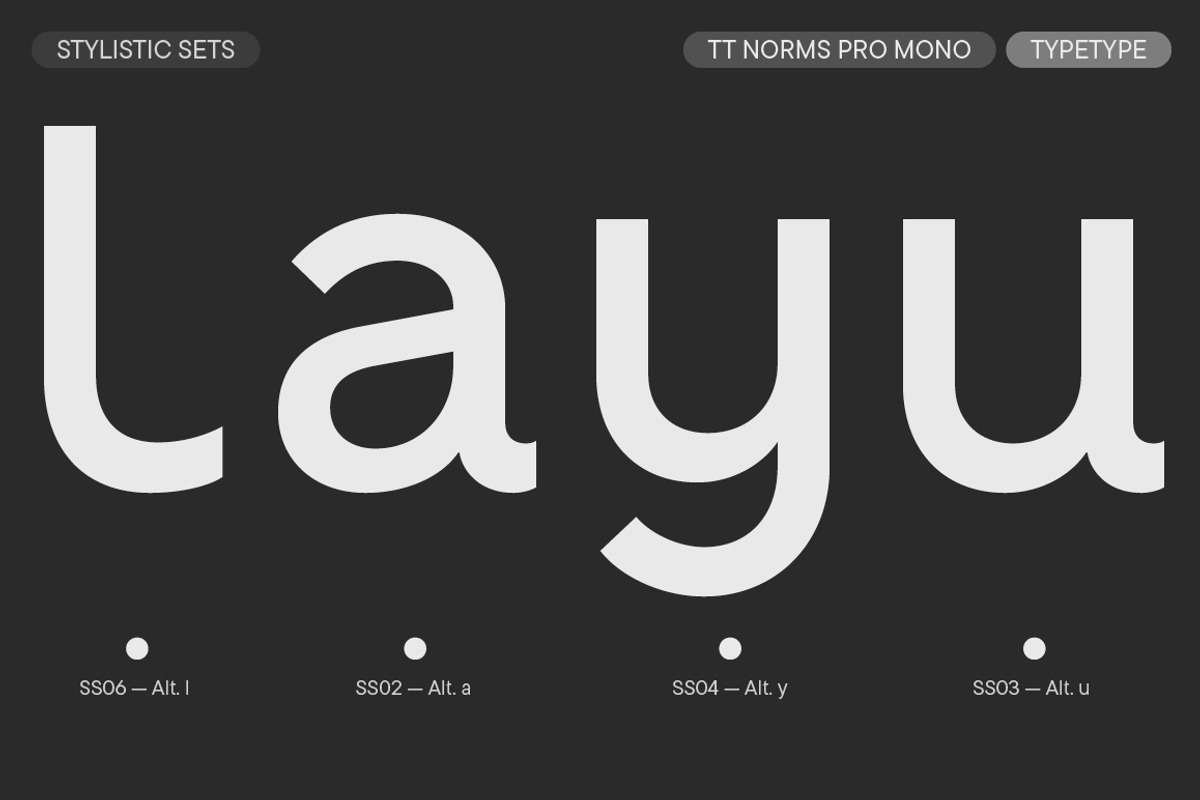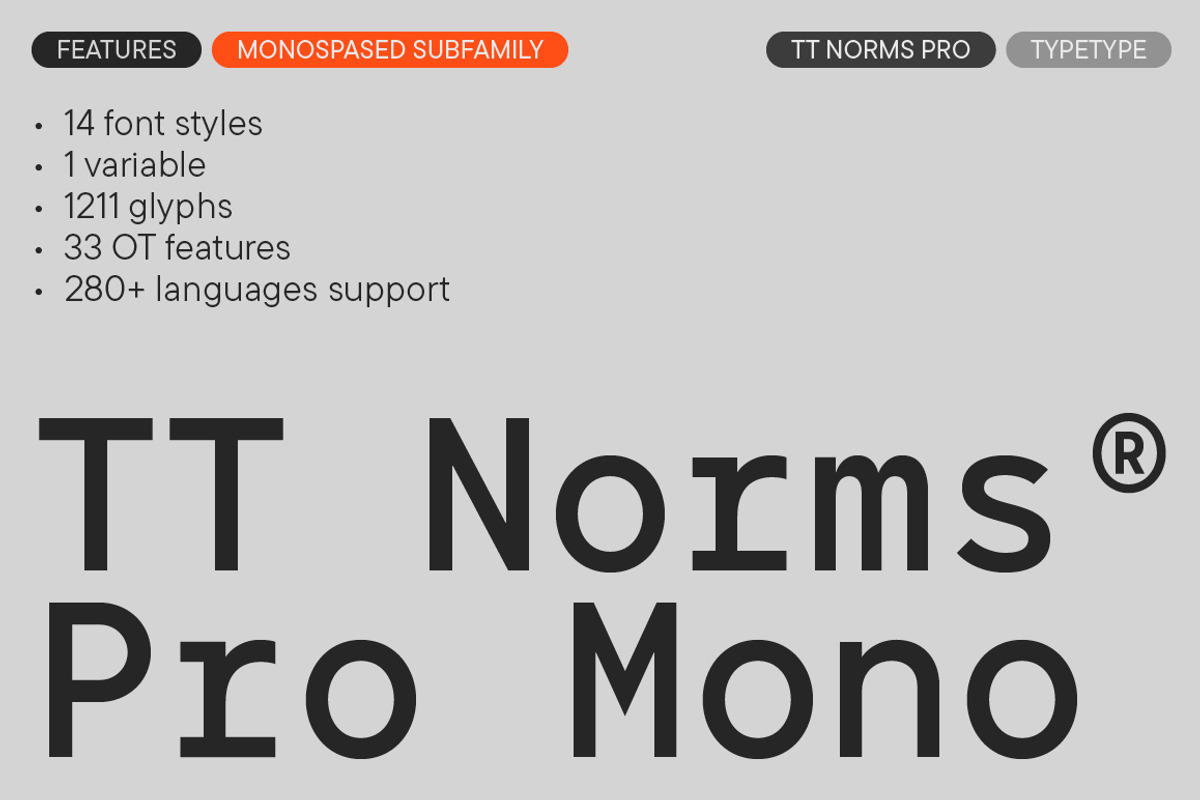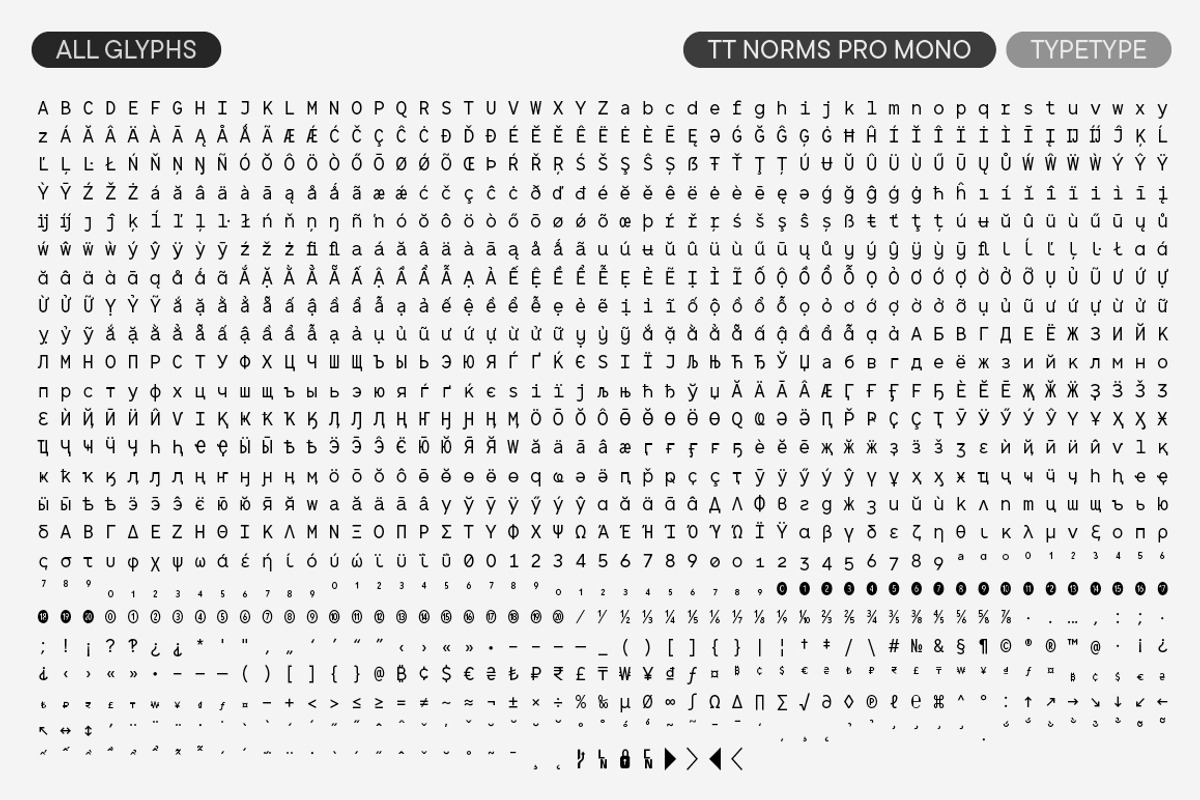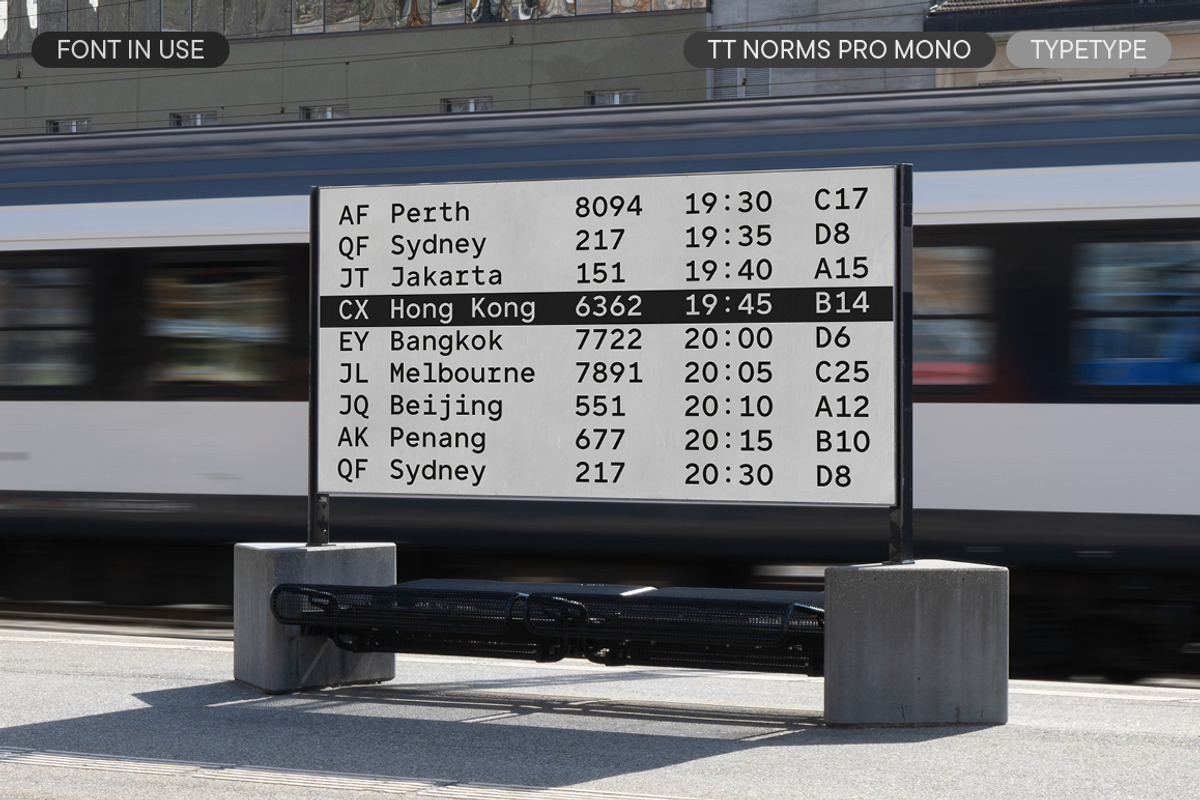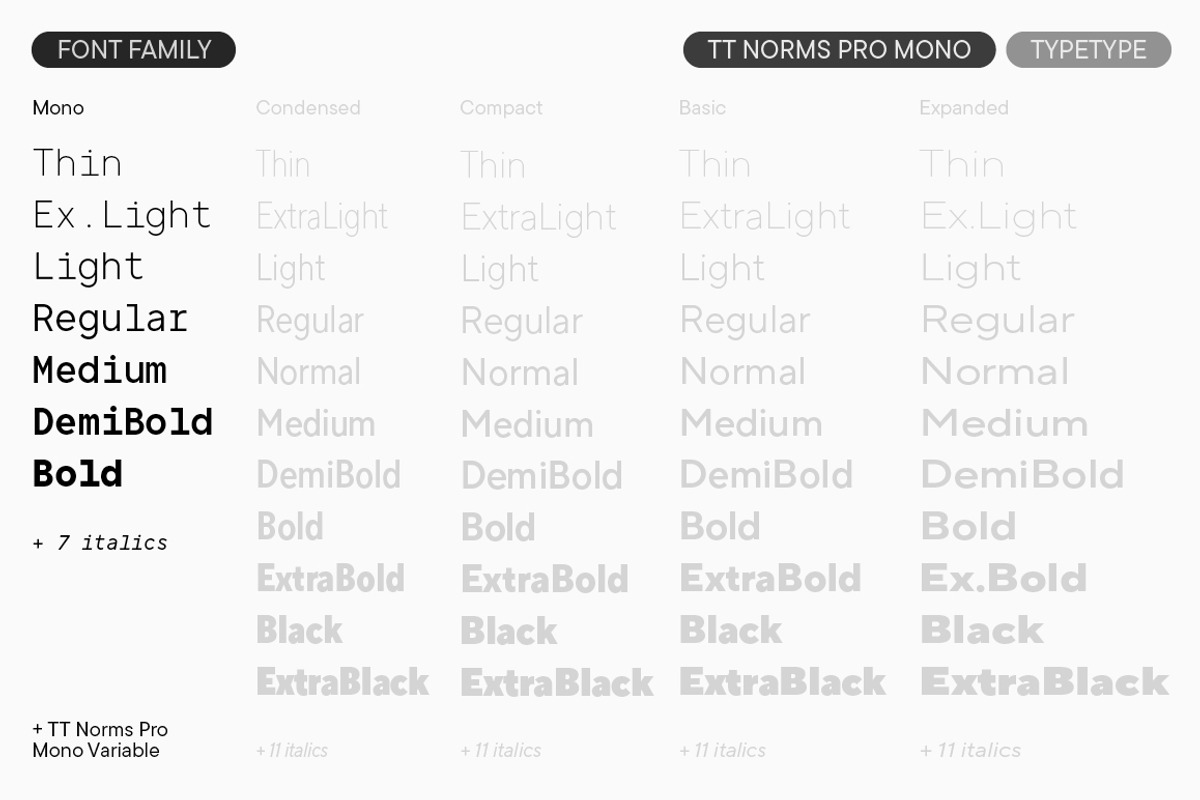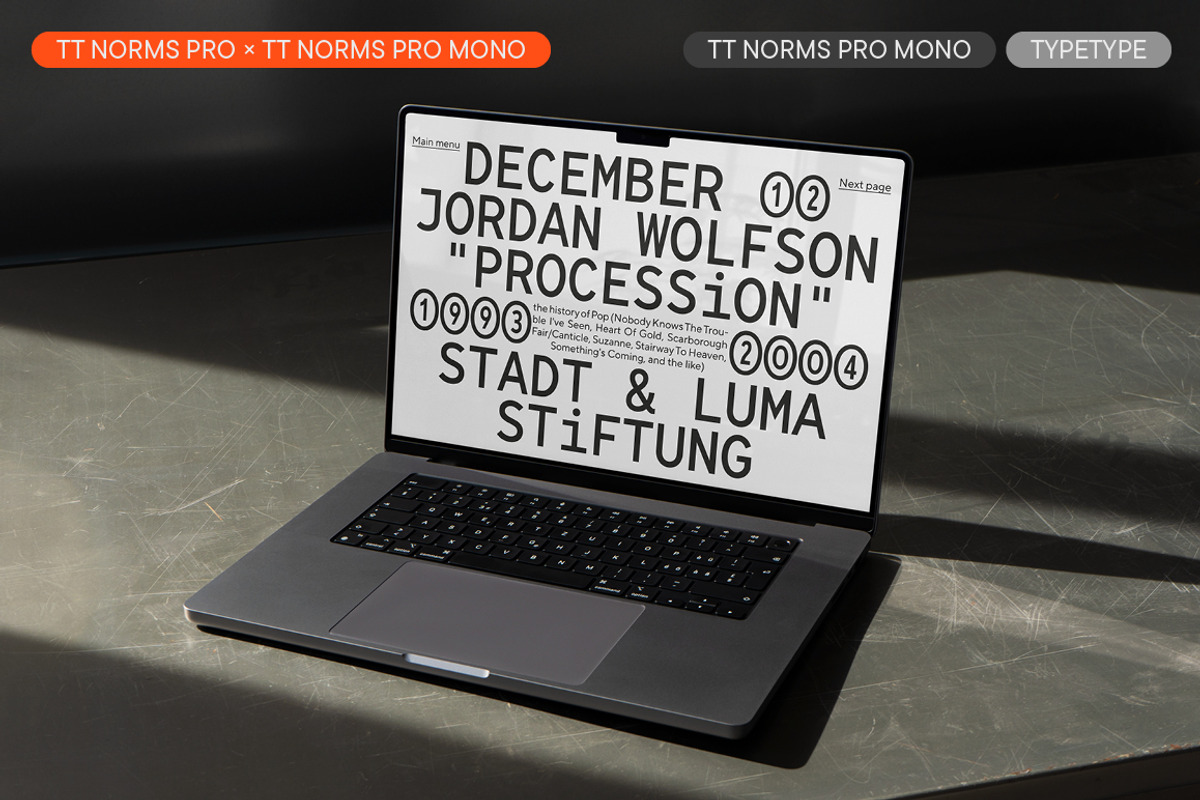
TT Norms Pro Mono
Introducing TT Norms® Pro, version 3.300!
It boasts an amplified character set, modified functionality, and, most importantly, new stylistic sets!
TT Norms® Pro is a functional geometric sans serif for aesthetic design choices and TypeType studio's bestseller. It has been a massive success since its release, and rightfully so! This stylish, elegant, and versatile font will become the full-fledged core of your collection.
Mono - 14 styles
On the one hand, TT Norms® Pro is aesthetic and functional, which makes it practical for accent placement. On the other hand, the font is relatively neutral to be a perfect "workhorse" with exceptional readability and consistent setting in running text. TT Norms® Pro is ideally suited for products in any domain: streaming services, banking, clothing brands, or the automotive industry. It's equally convenient to use on the web and in printing.
Now, the TT Norms® Pro typeface includes the most extensive font package, both in terms of font styles and character sets. The base version of TT Norms® Pro consists of 22 fully redesigned font styles and 4 additional subfamilies. Besides, this font boasts the most comprehensive language support in the TypeType collection.
As part of the update, we implemented new stylistic sets, such as various forms of slashed Os, alternate forms for figures 1, 3, 4, and the largest one – alternate forms for the characters "&," "G," "M," "Q," "Ж," and "К" in all lettercases of Latin, Cyrillic, and Greek character sets (uppercase, lowercase, and small caps). We designed all these sets based on research: we found out which alternate forms are the most popular among users and can be most frequently seen in fonts. For example, customization requests became one of the reference points for us.
In the 3.300 version, we also modified the functionality of some of the OpenType features and added 4 new ones to make the font even more convenient to use. The typeface's character set boasts 88 new glyphs as well. For instance, there are now more characters in the Latin small caps set.
The 3.300 version of TT Norms® Pro includes:
44 roman and 44 italic font styles in TT Norms® Pro, 7 roman and 7 italic font styles in TT Norms® Pro Mono; 2 variable fonts: TT Norms® Pro Variable with three parameters of variation (weight, width, and slant) and TT Norms® Pro Mono Variable with weight and slope axes of variation;
2081 characters in each font style, including an extended set of punctuation marks, symbols, and currencies;
5 widths: TT Norms® Pro with classic proportions, monospaced TT Norms® Pro Mono, narrower-proportioned TT Norms® Pro Compact and TT Norms® Pro Condensed, and wider TT Norms® Pro Expanded;
42 OpenType features with numerous ligatures, fractions, numerators, and denominators;
20 stylistic sets;
280+ languages support, counting in new symbols for French, Norwegian, Bulgarian, Uzbek, Abkhaz, and more;
Flawless kerning and manual TrueType hinting.